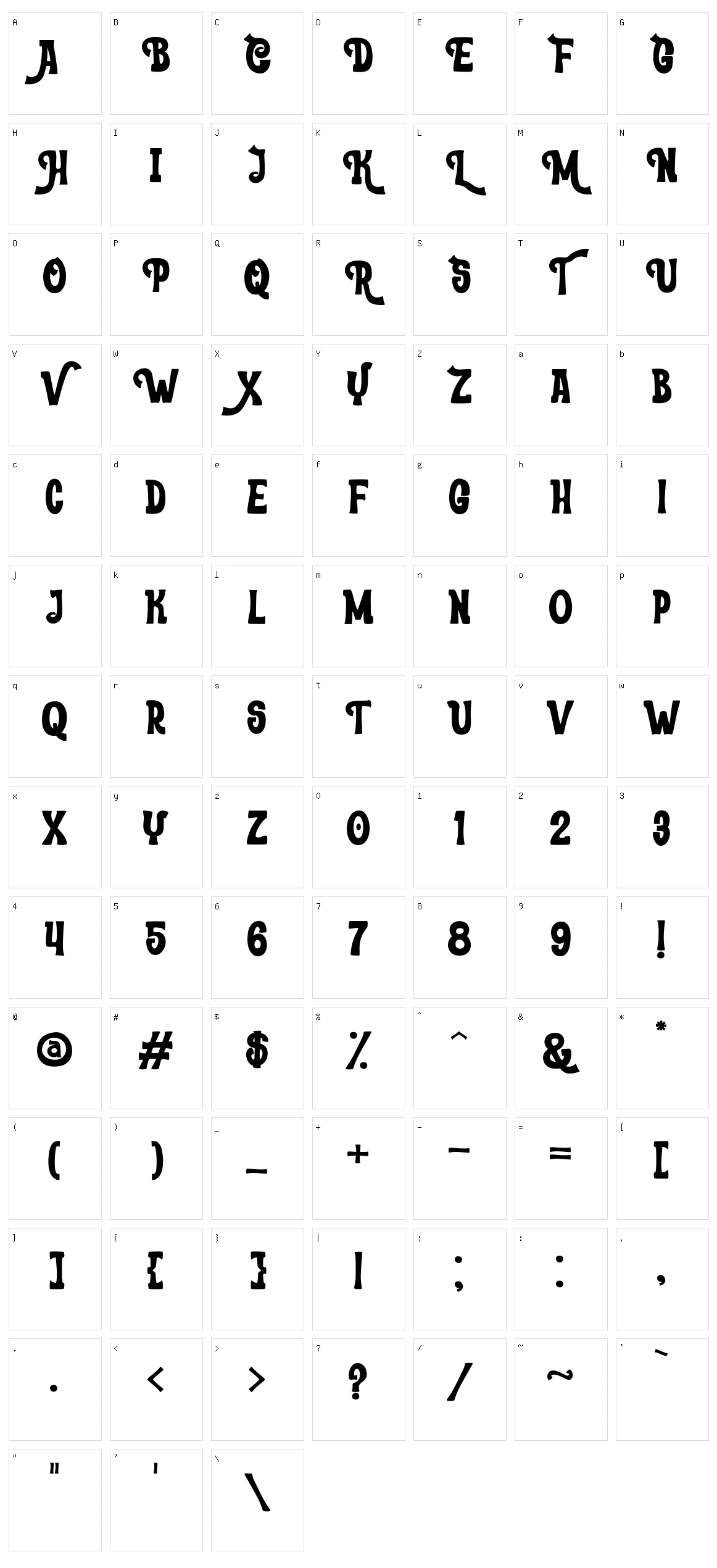
The free font Morning Beach is carefully designed by inumocca_type, showcasing a thoughtful balance of creativity and usability and falls under the Groovy font style. When you download the ZIP file, it contains only 422.52 KB of font files, making it lightweight and quick to download. Please review the license details below to understand permitted usage and distribution rights. If license information is not available, we recommend using this font for personal projects only or contacting the author directly for commercial usage permissions.